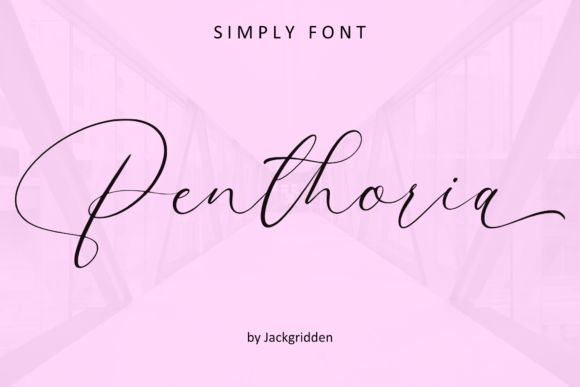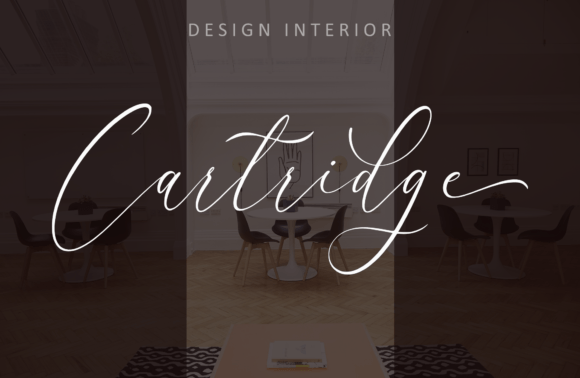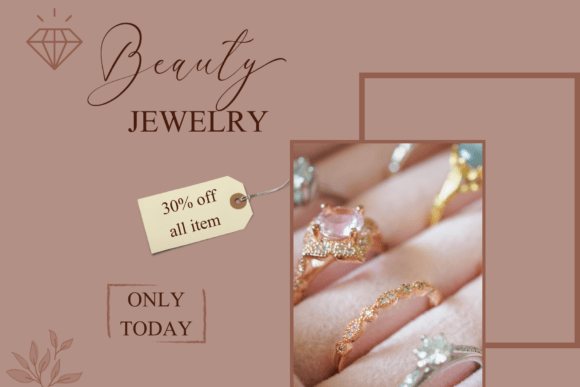
Introduction to Penthoria Font
Penthoria is an elegant and sophisticated handwritten font, perfect for adding a touch of class to any wedding or special event.
With its graceful curves and refined strokes, Penthoria captures the essence of timeless romance and is ideal for invitations, announcements, and other celebratory designs Its versatility and charm make it a standout choice for creating memorable and beautiful typographic elements.
Key Features of Penthoria Font
Why Choose Penthoria Font?
Penthoria Font offers exceptional quality and versatility, making it a valuable addition to your design toolkit. Whether you’re creating for personal projects or commercial use, Penthoria Font delivers professional results.